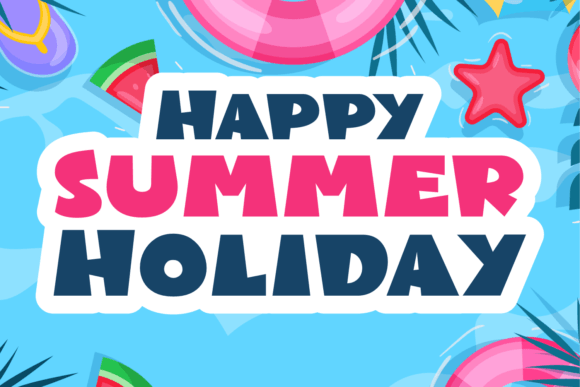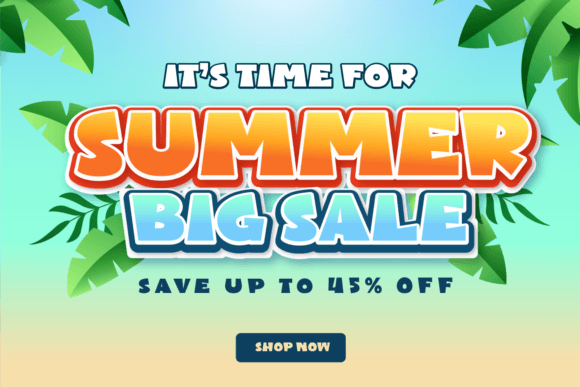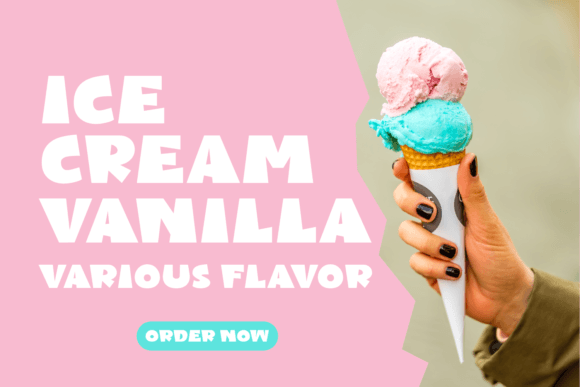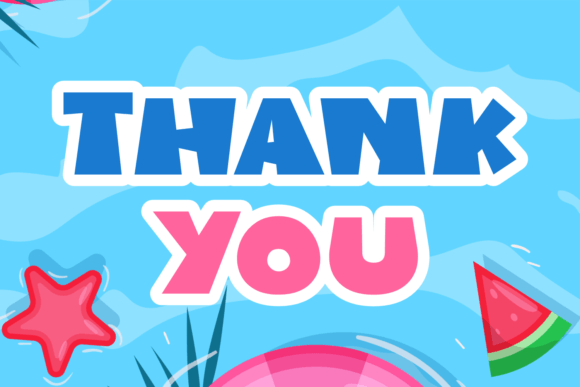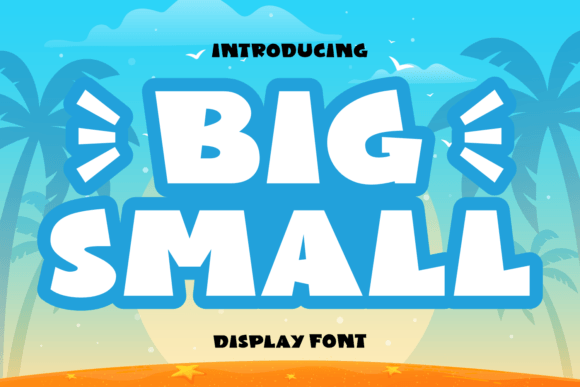
Introducing Big Small Font: The Playful and Chunky Display Font for Kids’ Projects
Are you a designer, crafter, or educator looking for a fun and engaging font to add a personal touch to your kids’ projects? Look no further than Big Small Font, a playful and chunky display font that’s perfect for children’s activities, school projects, and more. In this article, we’ll dive into the world of Big Small Font, exploring its unique features, benefits, and uses.
The Story Behind Big Small Font
Big Small Font is a carefully crafted font that embodies playfulness and authenticity. Its creators aimed to design a font that would bring a sense of fun and excitement to kids’ projects, making it an ideal choice for children’s activity sheets, educational materials, and school assignments. With its chunky and bold design, Big Small Font is sure to capture the attention of young learners and inspire their creativity.
Key Features of Big Small Font
So, what makes Big Small Font so special? Here are some of its key features:
- Playful and Chunky Design: Big Small Font boasts a fun and chunky design that’s perfect for kids’ projects. Its bold and rounded letters are sure to add a touch of personality to any project.
- High Readability: Despite its chunky design, Big Small Font is highly readable, making it suitable for use in a variety of contexts, from headings to body text.
- Authentic Feel: Big Small Font has an authentic feel that’s reminiscent of hand-drawn fonts. This makes it perfect for projects that require a personal touch.
Benefits of Using Big Small Font
So, why should you choose Big Small Font for your kids’ projects? Here are some benefits of using this fun and chunky font:
- Adds Personality to Projects: Big Small Font adds a touch of personality to kids’ projects, making them more engaging and fun.
- Enhances Readability: The high readability of Big Small Font ensures that your message gets across clearly, even for young learners.
- Inspires Creativity: The playful design of Big Small Font is sure to inspire creativity and imagination in kids, making it perfect for art projects, stories, and more.
Use Cases for Big Small Font
Big Small Font is a versatile font that can be used in a variety of contexts. Here are some use cases to get you started:
- Kids’ Activity Sheets: Add a touch of fun to your kids’ activity sheets with Big Small Font. Its playful design is perfect for puzzles, games, and more.
- School Projects: Big Small Font is ideal for school projects, including presentations, posters, and reports.
- Crafting and DIY Projects: Add a personal touch to your crafting and DIY projects with Big Small Font. Its chunky design is perfect for signs, labels, and more.
Tips for Using Big Small Font
Here are some tips for using Big Small Font effectively:
- Use it for Headings: Big Small Font is perfect for headings and titles. Use it to add a touch of personality to your project.
- Experiment with Colors: Big Small Font looks great in a variety of colors. Experiment with different colors to add visual interest to your project.
- Pair it with Other Fonts: Big Small Font pairs well with other fonts. Try pairing it with a sans-serif font for a fun and modern look.
| Font Name | Big Small Font |
| Author | Jasa (7NTypes) |
In conclusion, Big Small Font is a fun and chunky display font that’s perfect for kids’ projects. Its playful design, high readability, and authentic feel make it an ideal choice for designers, crafters, and educators. Whether you’re working on a kids’ activity sheet, school project, or crafting and DIY project, Big Small Font is sure to add a touch of personality and fun. So why not give it a try and see the difference it can make?